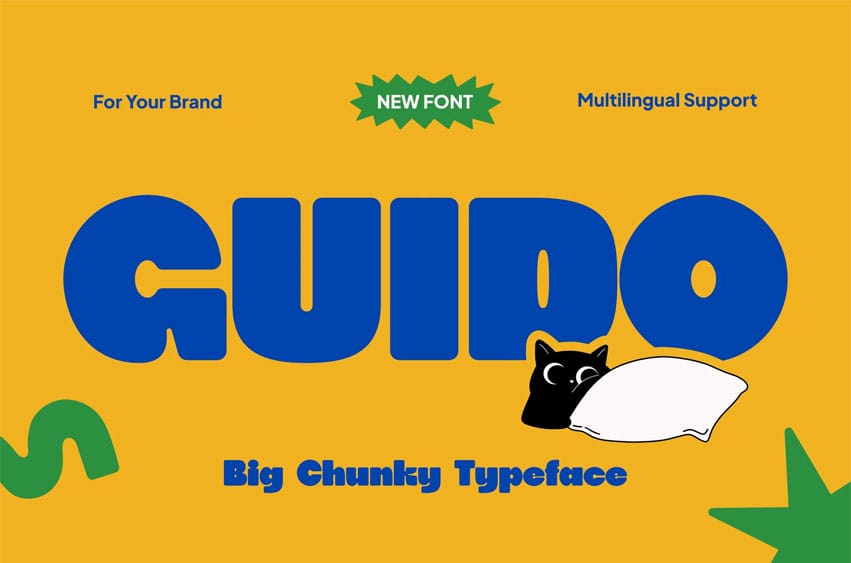
Guido Font is a playful bold display typeface for eye-catching branding and vibrant visuals, designed with chunky rounded shapes, soft curves, and low contrast strokes that create a friendly and expressive tone. The font carries a joyful and energetic vibe, making it perfect for kids-related designs, food packaging, posters, and social media graphics. Its rounded geometric structure gives it a retro pop feel, while still staying clean and highly readable.
With multilingual support for 67 languages, Guido ensures your creative projects connect with a wider global audience. It’s built to be both fun and functional, helping designs feel lively without losing clarity.
If your design needs to feel fun, bold, and instantly engaging, Guido delivers strong visual impact with minimal effort. The thick letterforms naturally draw attention, making it ideal for branding, posters, packaging, editorial headlines, kids books, and digital campaigns. This typeface helps designers create a friendly and approachable tone, perfect for brands that want to feel energetic, creative, and memorable. Whether you’re building a playful identity or designing scroll-stopping social content, Guido brings personality to every layout.
Key Features : Chunky Rounded Letterforms
- Soft curves create a warm and friendly appearance
- Bold weight enhances visibility in large displays
- Balanced proportions keep readability strong
Playful Retro Personality
- Inspired by retro pop and fun visual culture
- Perfect for kids themes, food branding, and creative posters
- Adds character to both print and digital design
Designed for Versatility
- Great for branding, packaging, social media, and editorial use
- Works smoothly across posters, merchandise, and UI headings
- Strong presence even in simple layouts
Multilingual Ready
- Supports 67 languages for global reach
- Ideal for international branding and diverse audiences
Make your designs feel more alive and expressive. Guido is perfect for designers, illustrators, and brands who want bold, playful visuals that instantly connect with audiences.